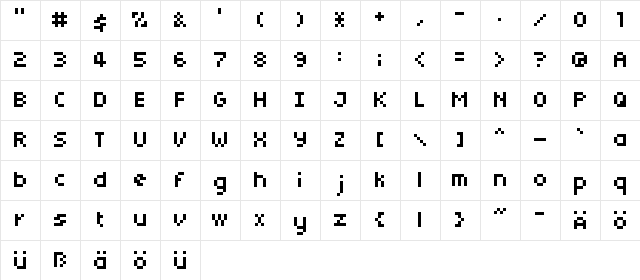
Supermarket Regular
Design Context for Supermarket Typeface
Supermarket is a composed and adaptable typeface that performs quietly and consistently across a wide range of design contexts.